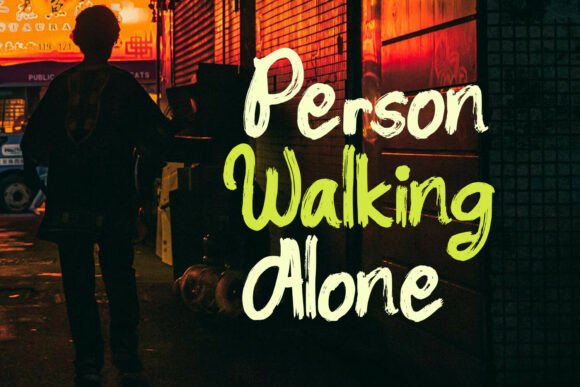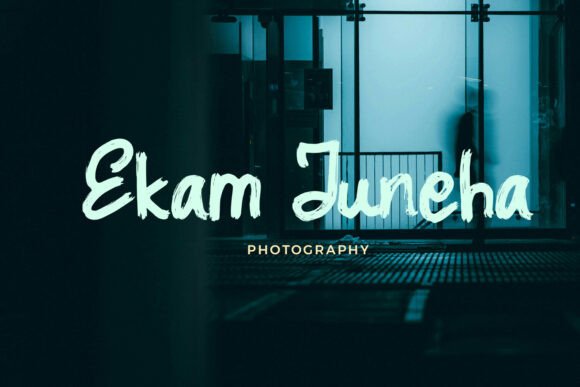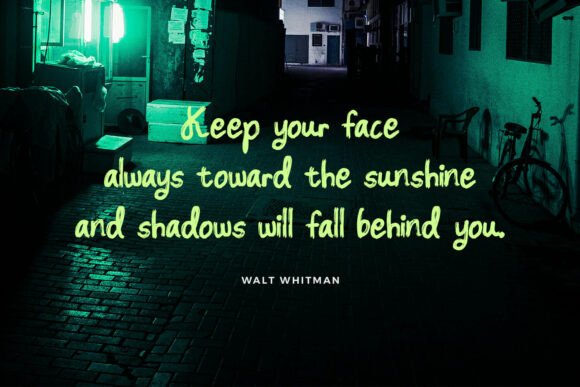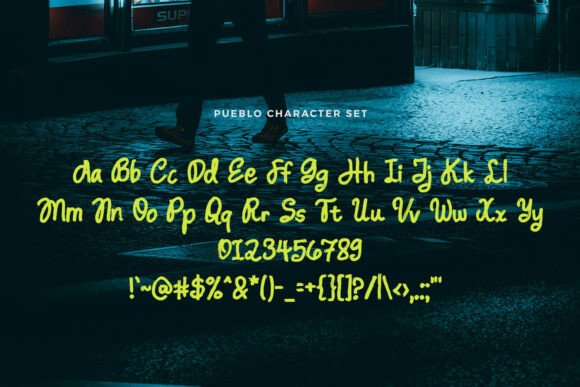
Unleashing the Power of Pueblo Font
Have you ever stared at a blank canvas, feeling the weight of a creative project on your shoulders? You’ve got a vision, but it’s waiting to be brought to life. That’s when you need a font that’s as bold as your imagination. Enter Pueblo Font, the high-impact grunge brush font that’s about to become your new go-to design resource.
With its heavy, textured strokes and distressed edges, Pueblo Font gives your text a raw, hand-painted aesthetic that’s guaranteed to make a statement. Whether you’re designing a rock festival poster, a gig flyer, or album art, this font is the perfect choice for anyone looking to unleash their urban spirit. And the best part? It’s available for free download, so you can bring your creative vision to life without breaking the bank.
Pueblo Font
- Unique characteristics include a modern and clean design aesthetic, making it perfect for a wide range of creative projects
Honest Review: Pueblo Font
I recently stumbled upon the Pueblo Font and I’m excited to share my thoughts on this design resource. As a designer, I’m always on the lookout for high-quality fonts that can elevate my creative projects. The Pueblo Font did not disappoint.
- ✨ The font’s unique, rustic feel is perfect for projects that require a touch of earthiness.
- ✨ The transparent background makes it easy to customize and combine with other design elements.
- ⚠️ The font may not be suitable for projects that require a more modern or sleek aesthetic.
- ⚠️ The font is not as versatile as some other design resources, so it may not be the best choice for complex projects.
Overall, I’m impressed with the Pueblo Font and would definitely recommend it to designers looking for a high-quality, rustic font. While it may have some limitations, its unique feel and transparent background make it a valuable addition to any design library.
Pueblo Font
Pueblo Font is a high-quality design resource perfect for creative projects that require a unique and elegant touch. This font features a transparent background, making it easy to use in various design applications.
Tips for Getting the Most Out of Pueblo Font
To get the most out of Pueblo Font, use it in conjunction with other high-quality design resources, such as graphics and images. Experiment with different font sizes and styles to create a unique and visually appealing design.
Pueblo Font is commonly used in wedding invitations, business cards, and other creative projects that require a touch of elegance and sophistication. Its transparent background makes it easy to use in various design applications.